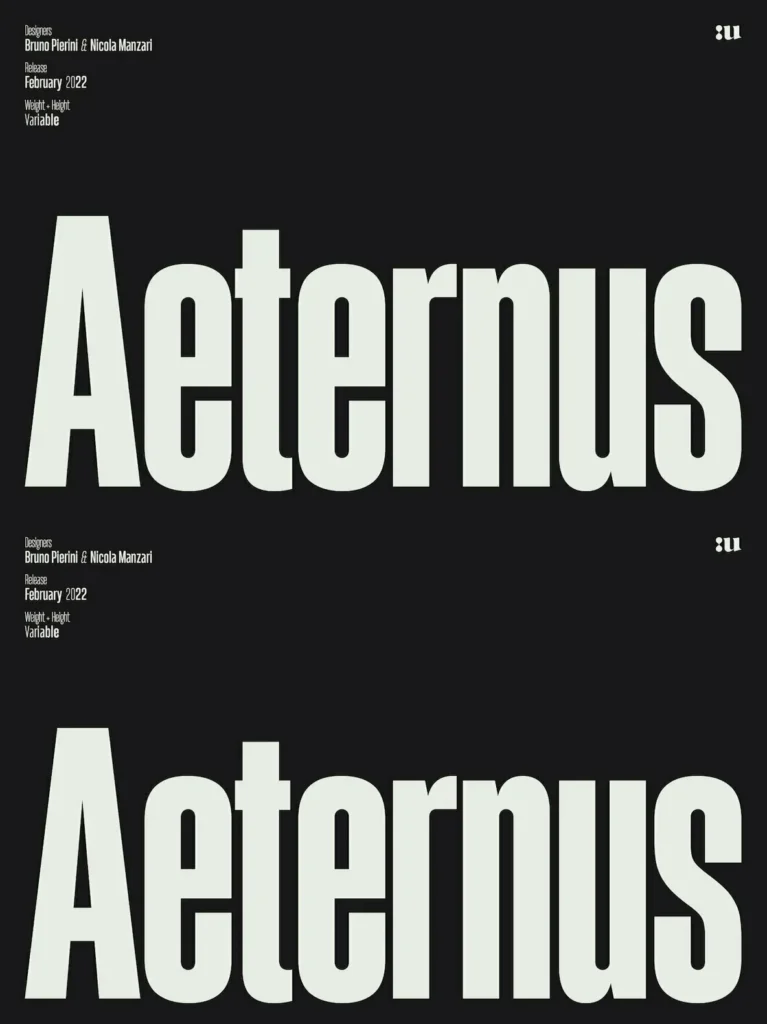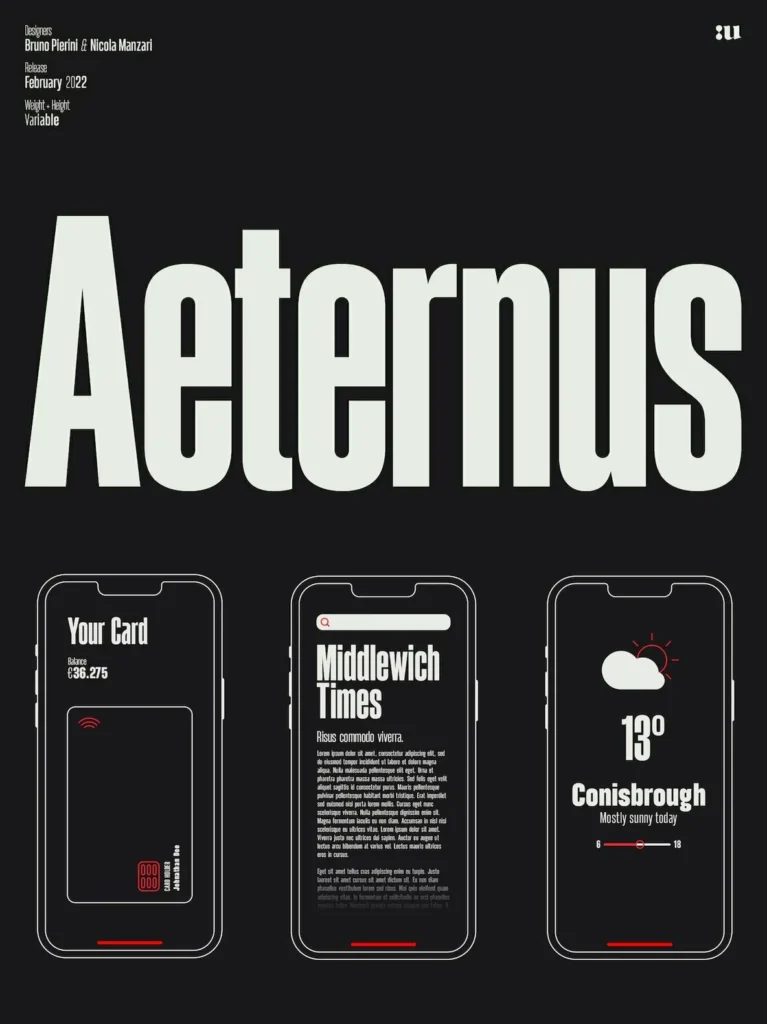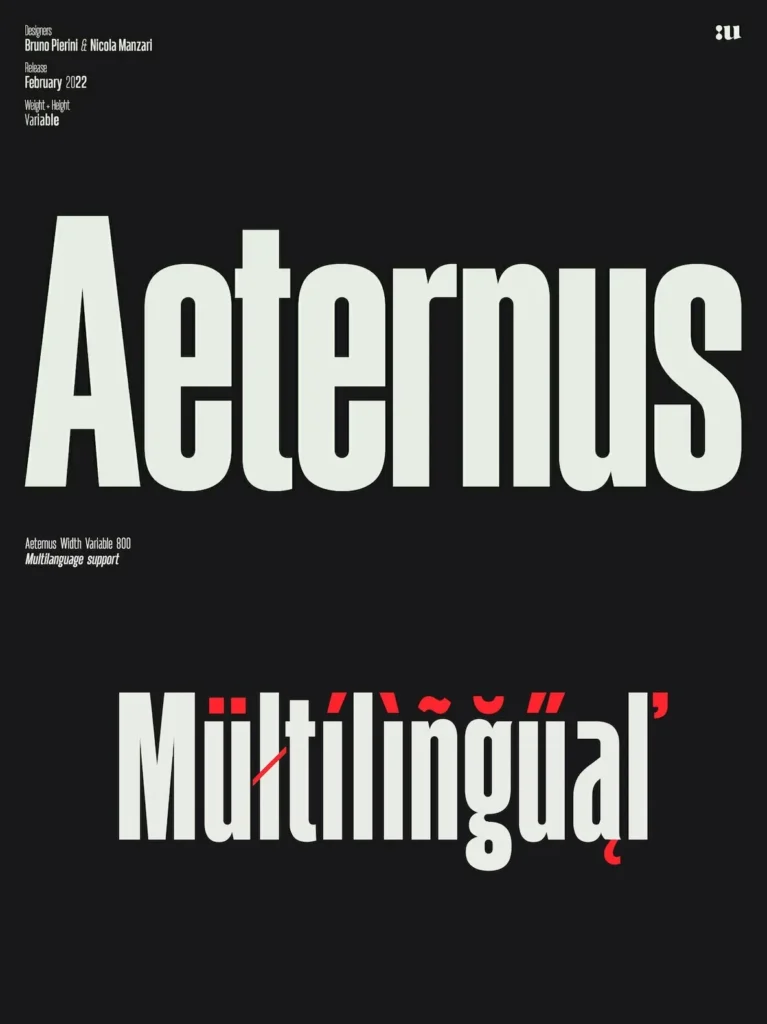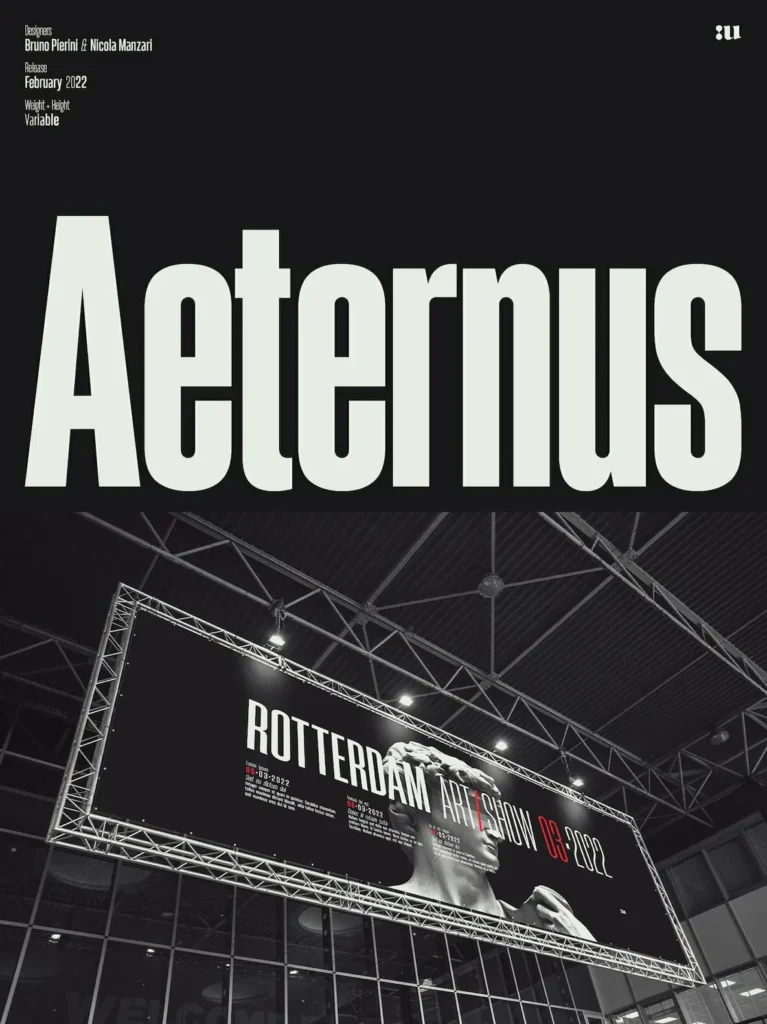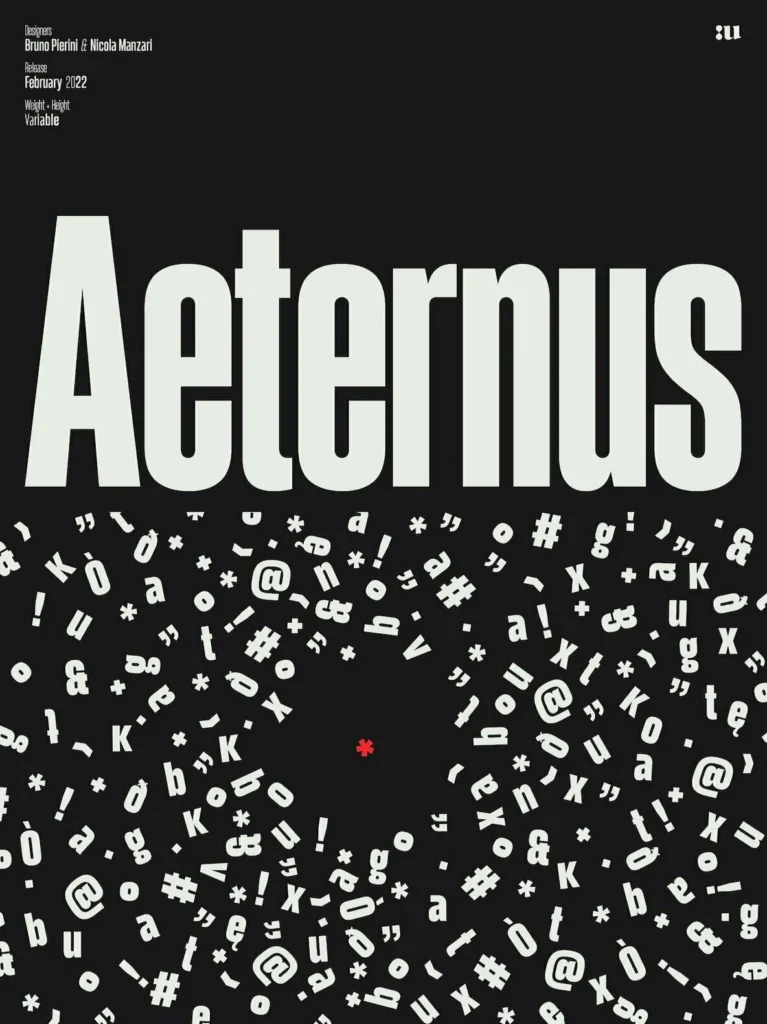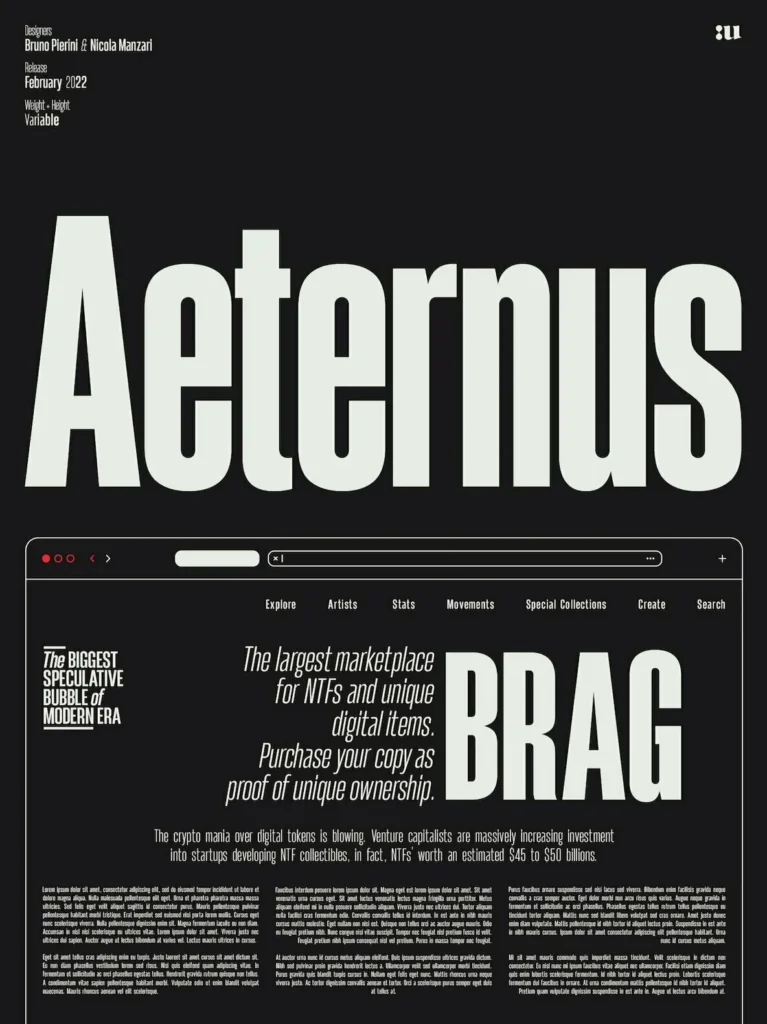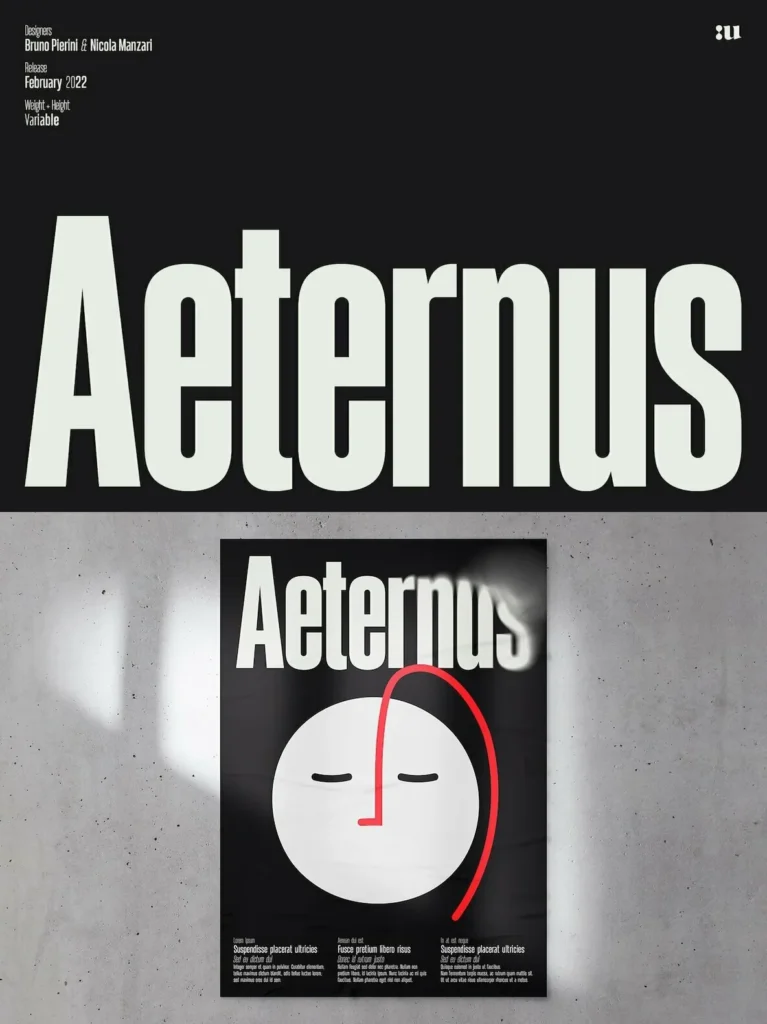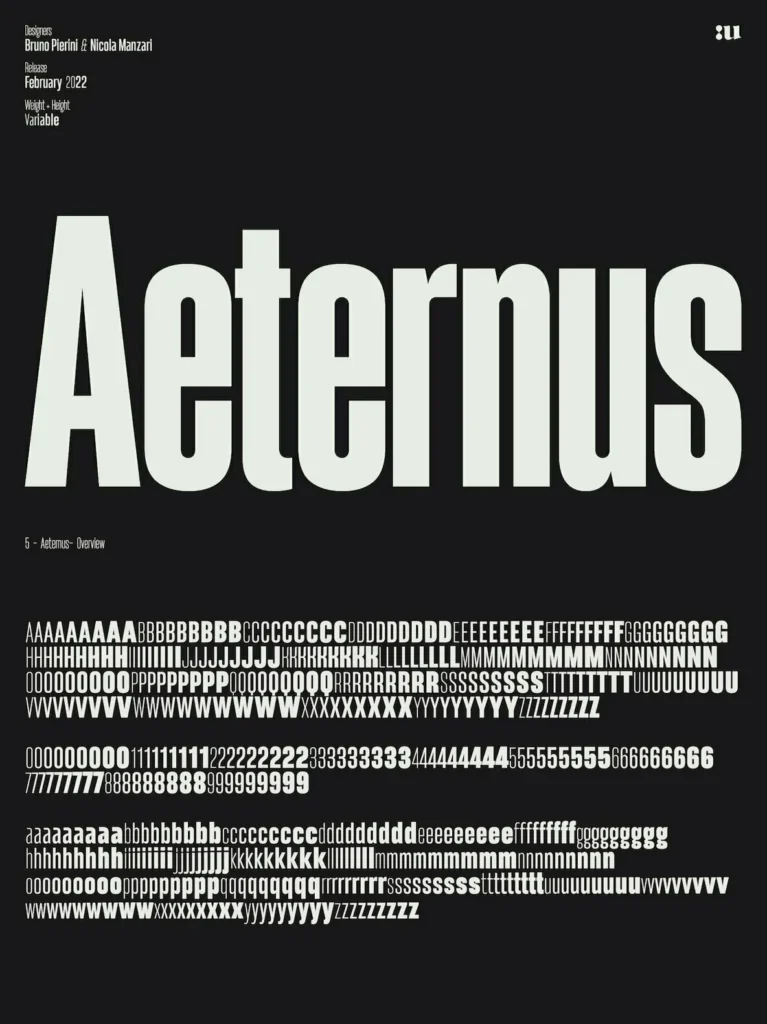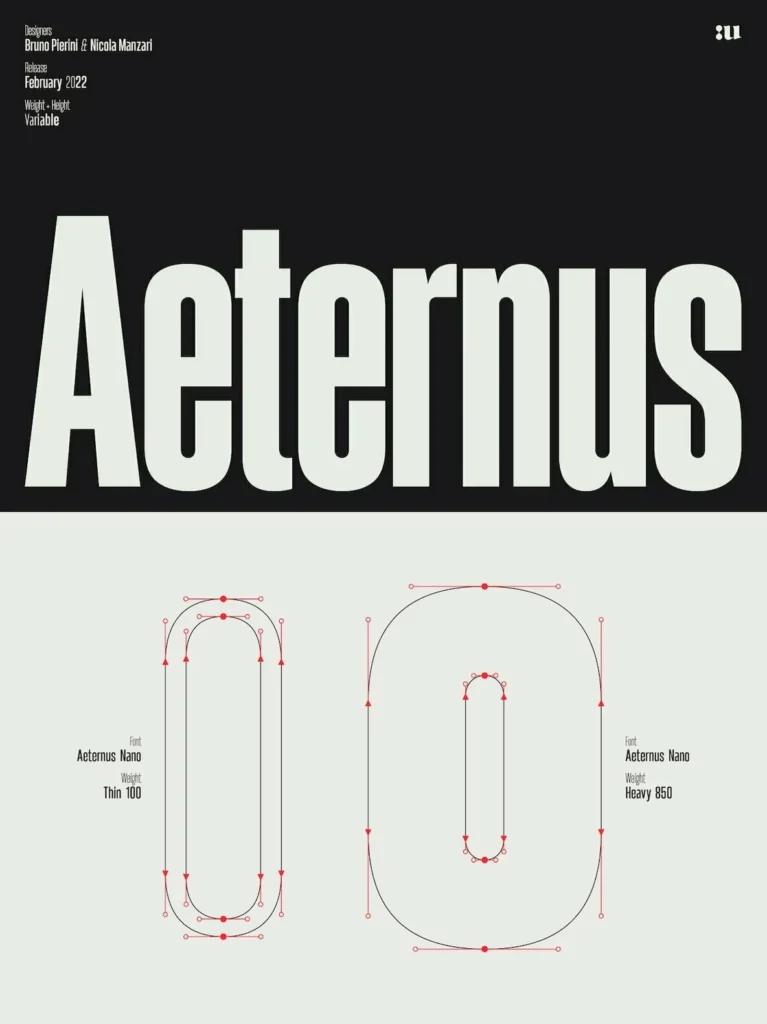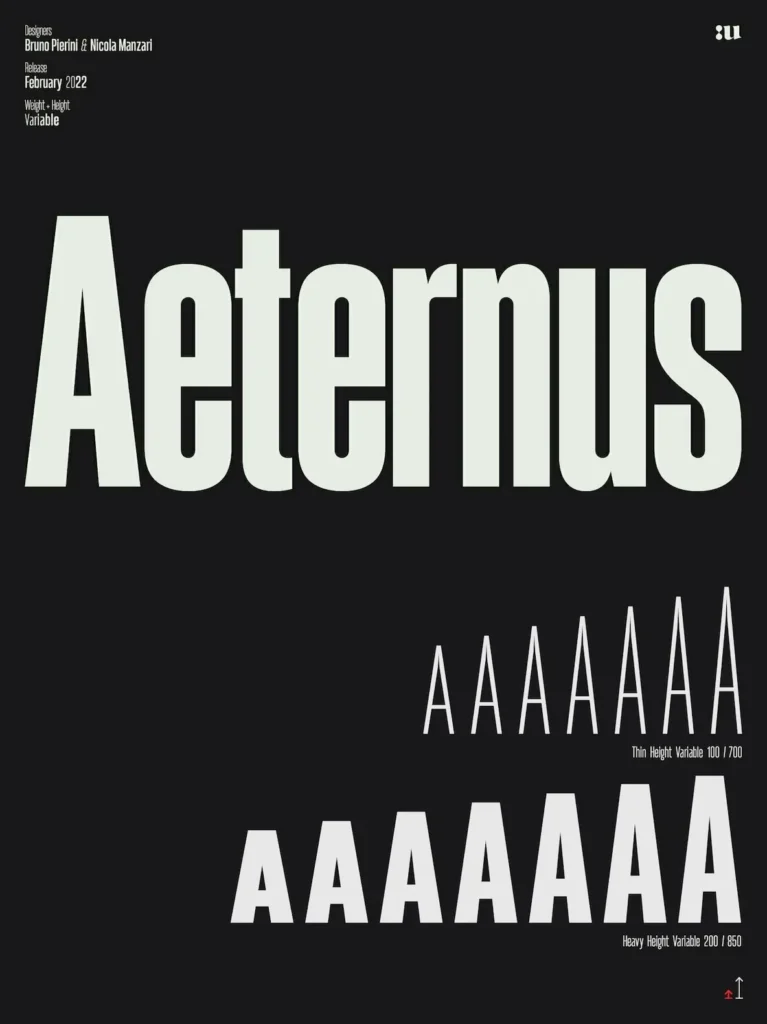
Aeternus — Geometry That Holds Its Shape
Aeternus is a geometric sans serif variable typeface made for adaptable, modern design. It includes two base heights—nano and tall—so you can choose proportions that match the tone and space of each project. This structure makes Aeternus work equally well in concise headings and in broad branding systems, with reliable performance across print and digital environments. Matching italics support expressive layouts while keeping the family’s geometric logic intact.
With nine distinct weight options, from thin to heavy, Aeternus keeps its tonal clarity in large-scale print and on-screen interfaces. Its key strength is the ability to adjust height while preserving the integrity of specific weights—an advantage when you need a clear visual hierarchy and consistent branding. It suits contemporary identity systems, UI/UX workflows, and apparel design where consistency matters across many formats.
Features
Two constant heights: nano and tall
Nine variable weights from thin to heavy
Matching geometric italics
Optimized for titling, branding, and web design
Suitable for UI/UX, clothing, and large-format print